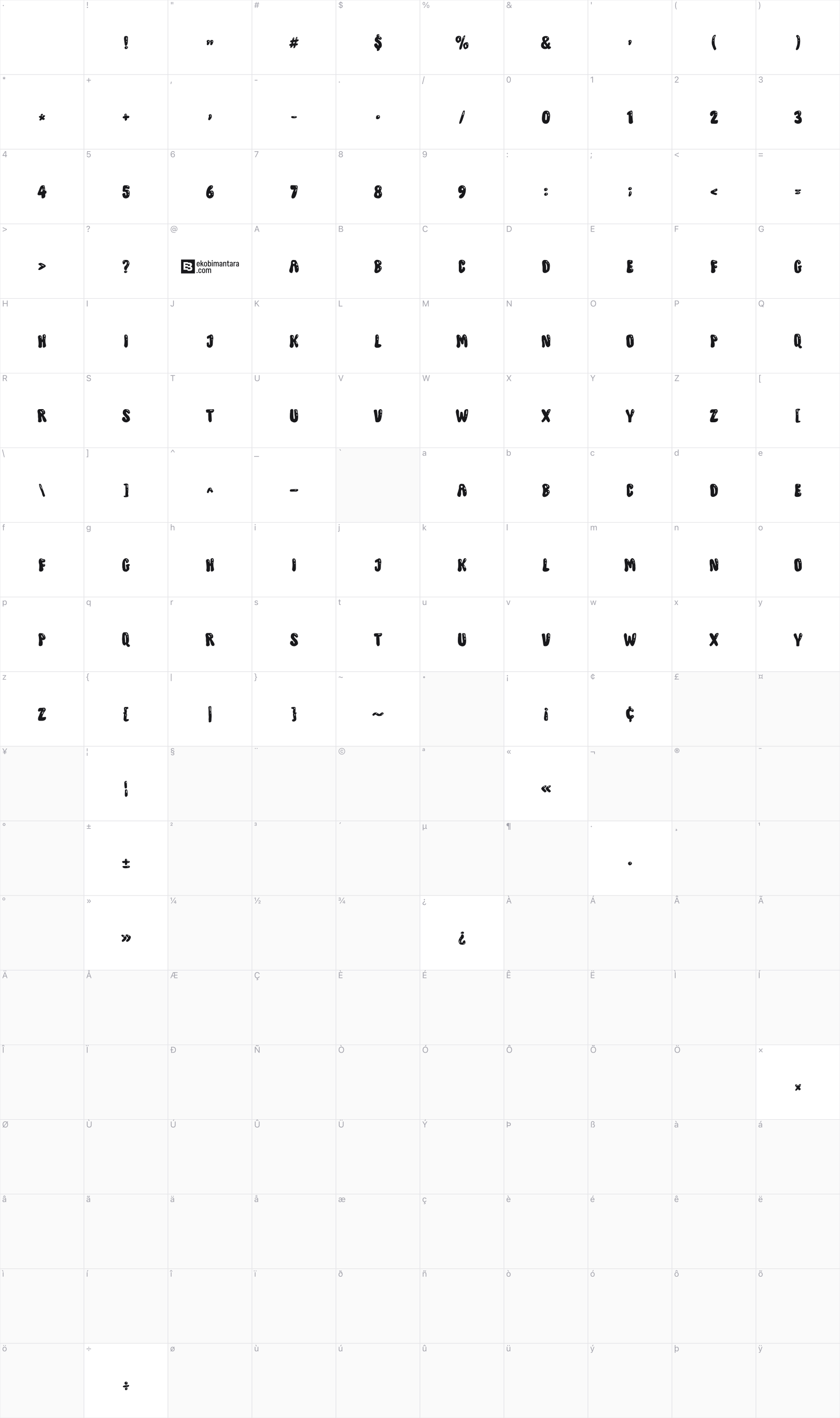
Flying Bubble
Flying Bubble is a heavy inflated display font with characters so rounded and puffed they press against each other like soap bubbles in a cluster. The blobby, undulating outlines draw directly from 1960s and 70s psychedelic lettering traditions. It works at large sizes where the dense, organic shapes can breathe and read clearly.